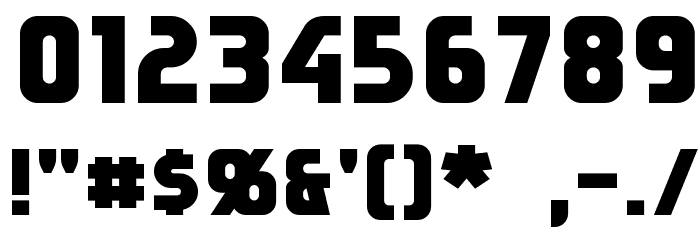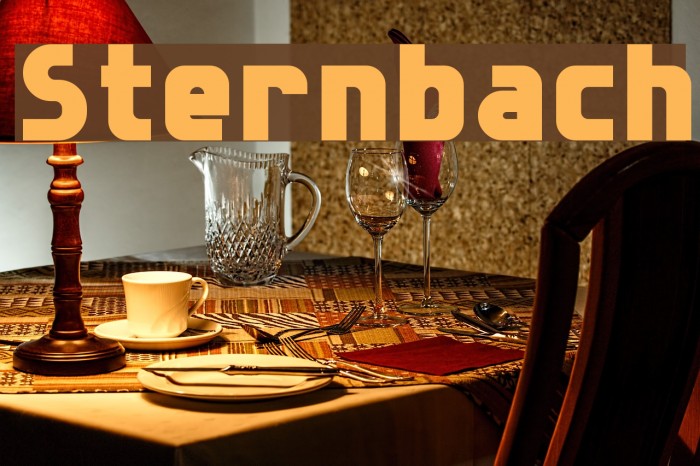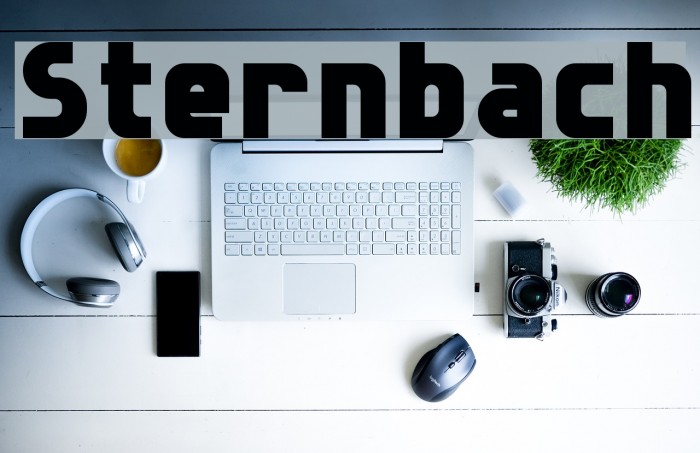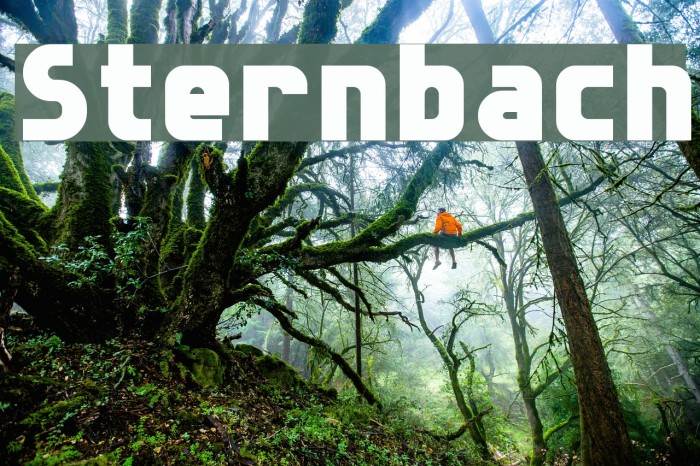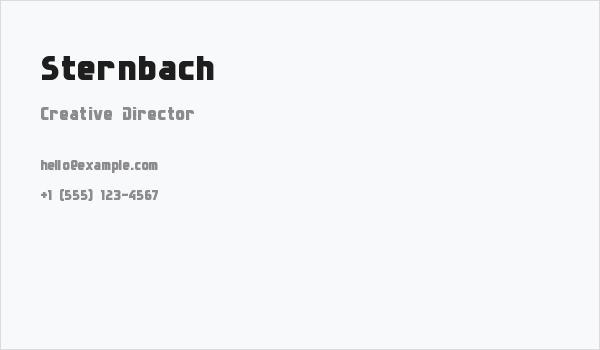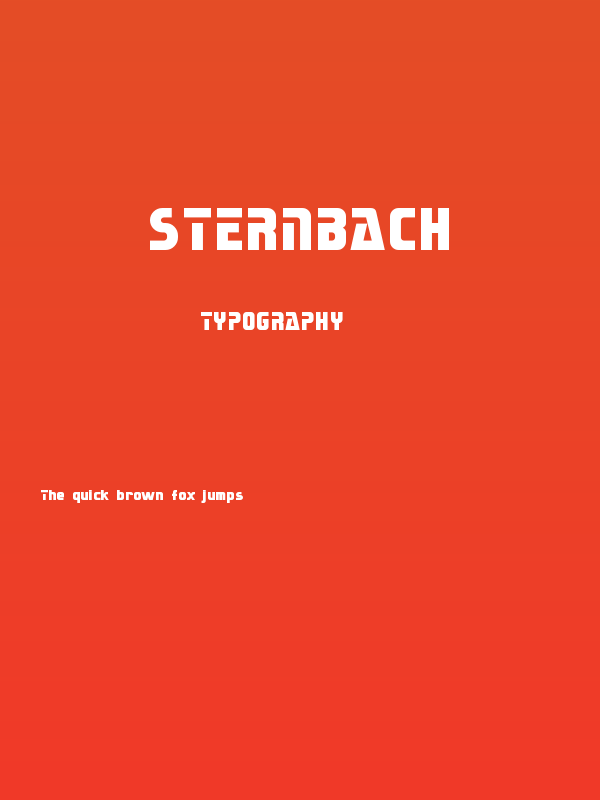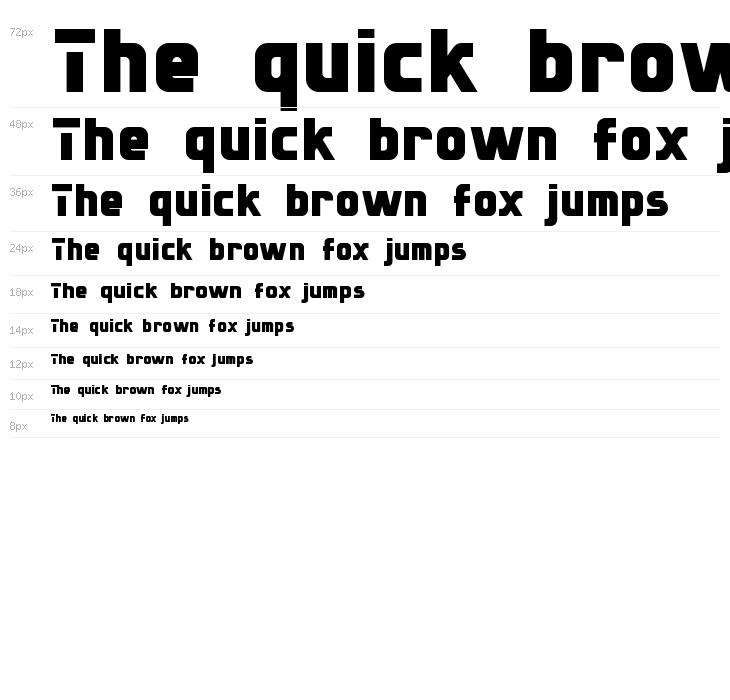
Sternbach Font
Sternbach Description
This font features a bold, geometric design with strong, angular lines and a futuristic feel. The uppercase letters are particularly striking, with unique shapes that give a sense of movement and energy. The lowercase letters maintain the same boldness, ensuring consistency across text. Numbers and special characters are designed to match the overall aesthetic, providing a cohesive look. The font's thick strokes and blocky appearance make it highly legible, even at smaller sizes, while its distinctive style ensures it stands out in any design.
| Proposed Projects | Ideal for branding, posters, headlines, and any project requiring a modern, eye-catching typeface. |